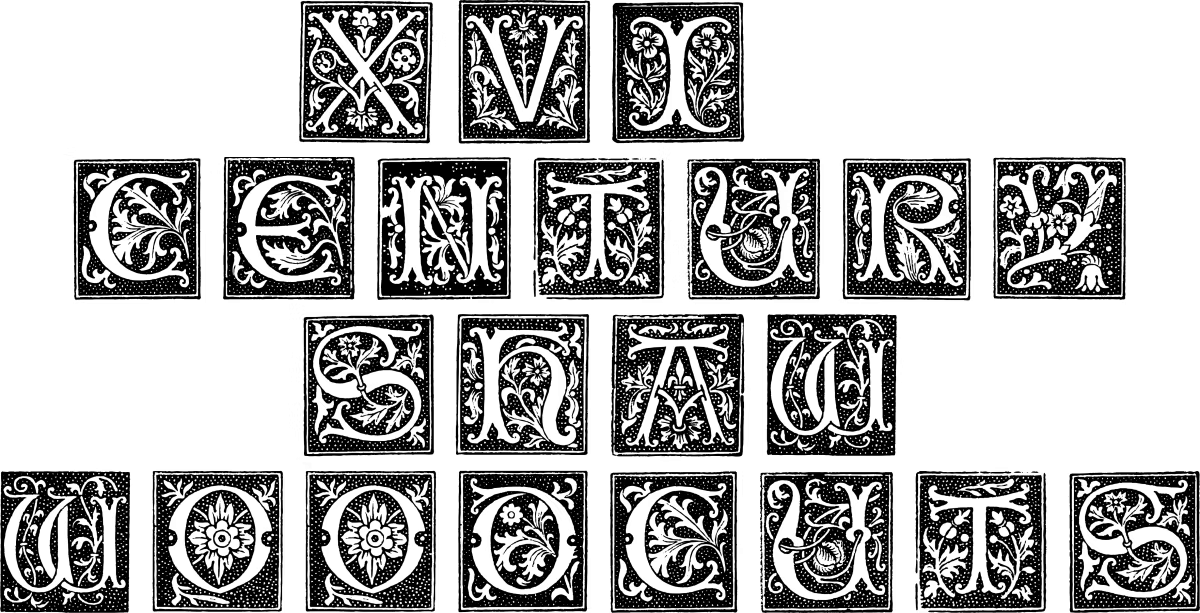
XVI Century Shaw Woodcuts
Font Family by Intellecta Design
A classic decorative design remastered by Intellecta Design. Designed around an antique theme, this font works great in display purposes. Contains a limited amount of letter designs, works best when used for headers